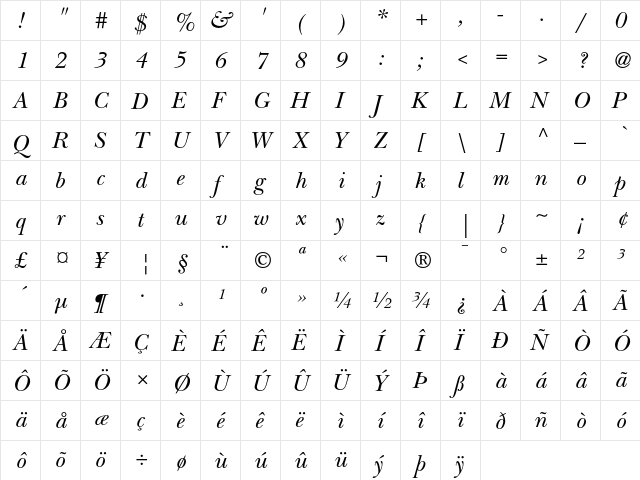
ITC New Baskerville Italic
Design Context for ITC New Baskerville Typeface
ITC New Baskerville takes a measured approach to typography — its balanced proportions and neutral character make it a reliable workhorse for both digital and print work. The dynamic lean of this cut emphasises speed and emphasis in any layout.
Pro Tip: Try ITC New Baskerville for annotation and caption copy alongside an upright companion — the contrast in angle creates a dynamic but ordered typographic system.